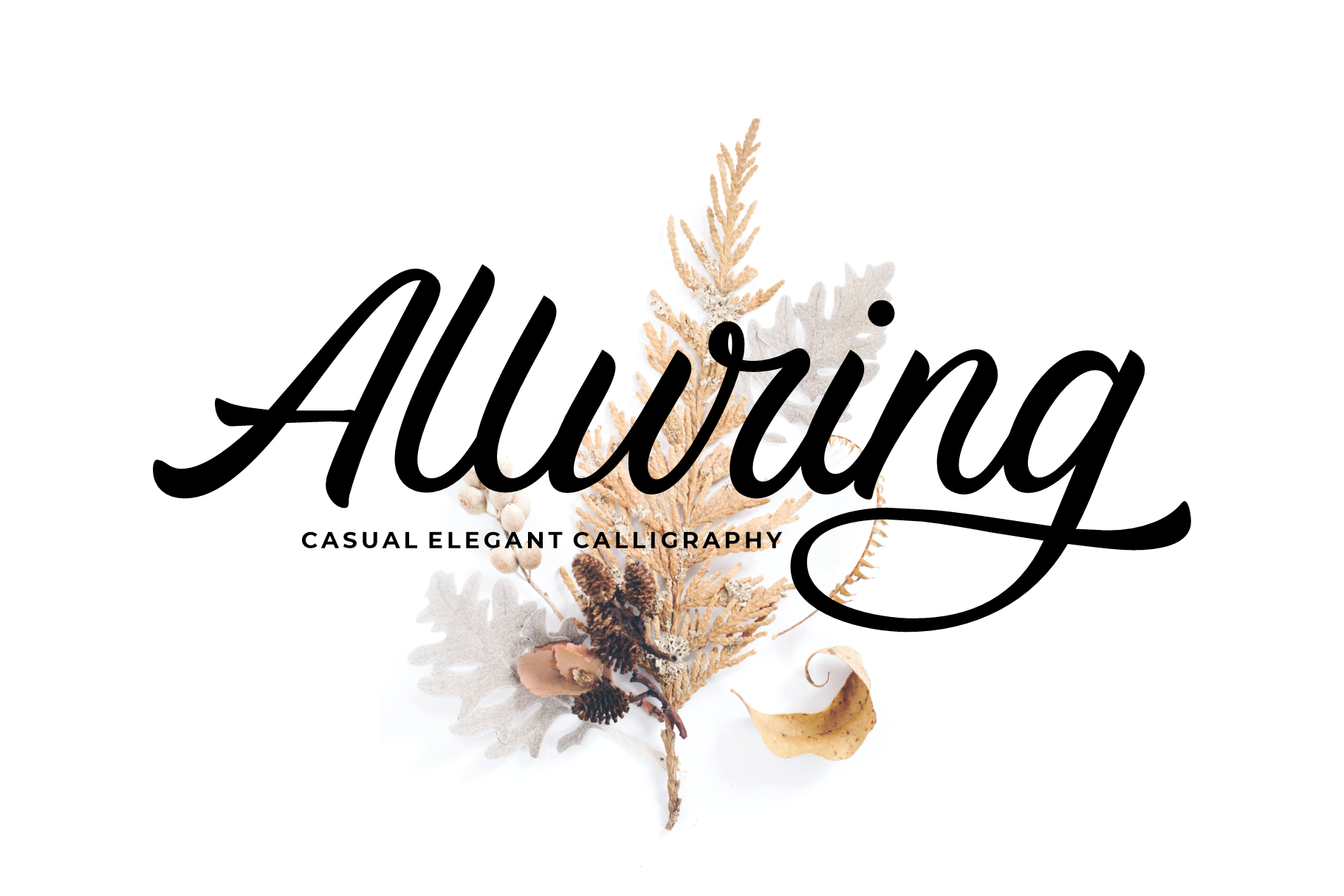
Alluring Calligraphy Fonts
Alluring Fonts is a casual & elegant typeface that makes handwriting appear effortless. The lightweight font features ligatures, alternates characters, a range of punctuation and numerals, plus accents and multilingual support through the use of foreign language characters.
Alluring Fonts was designed to emulate a real hand-written look. It's great for using in headlines because of its simple form and uncomplicated structure.